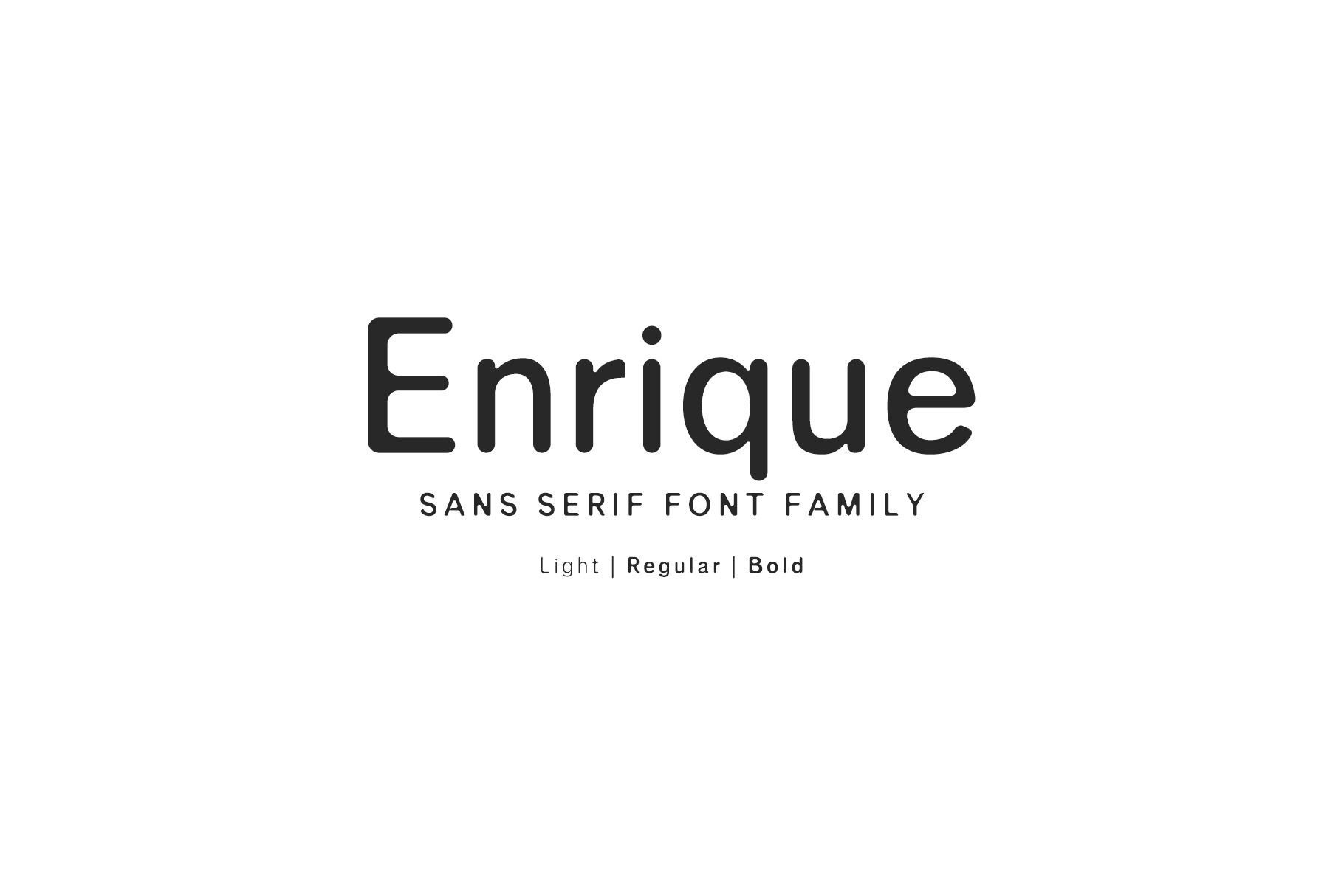
Enrique Sans Serif Font Family
Enrique Sans Serif Font Family is a clean rounded sans serif font. It comes with 3 weights. It can be used to create great works on logos, texts, presentations, posters, magazines, notices, titles, name card, magazine, web layouts, invitations, headers, branding and other any business related. It looks gorgeous in all caps with a wide-set spacing if you want to try a classy look, or beautiful on its own in capital and lowercase letters for something completely timeless.
- Font Weight: Regular, Light, and Bold
Enrique Font Features:
- Uppercase Multilingual Letters
- Lowercase Multilingual Letters